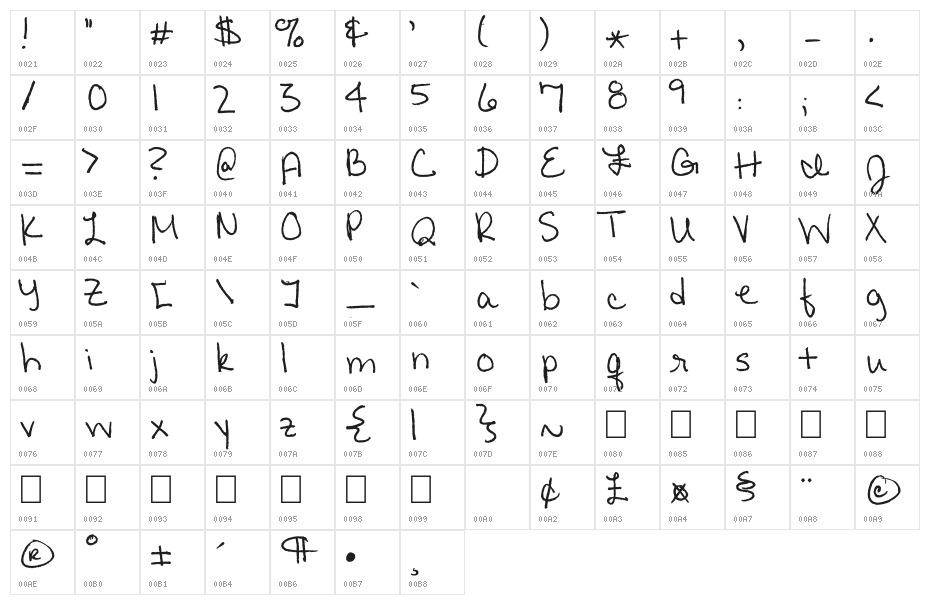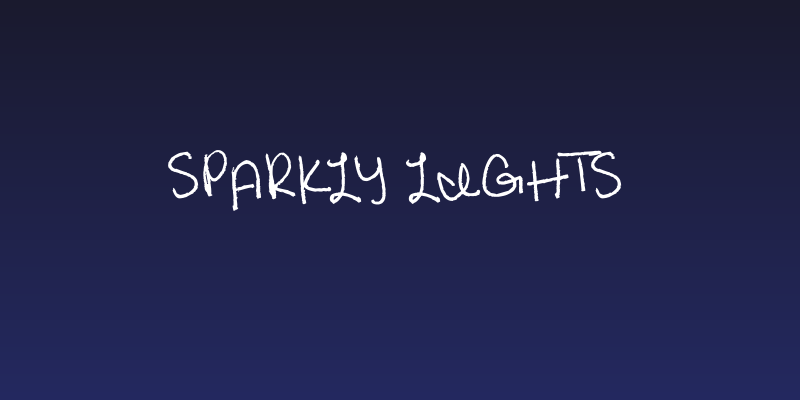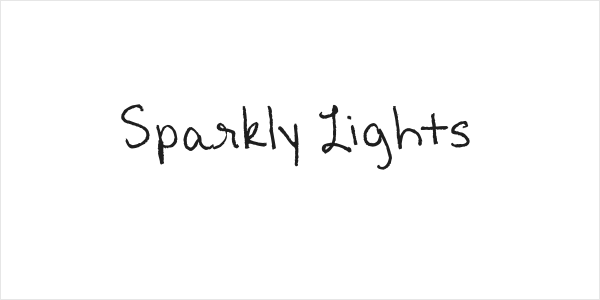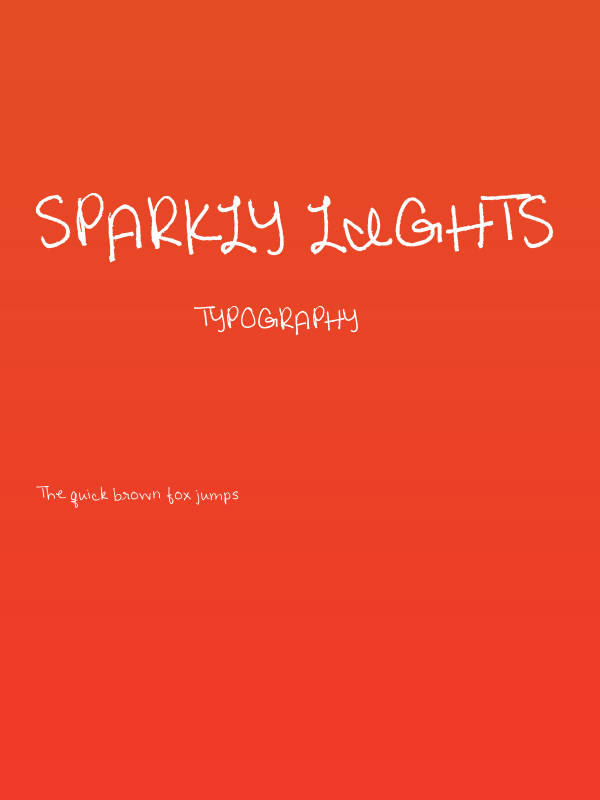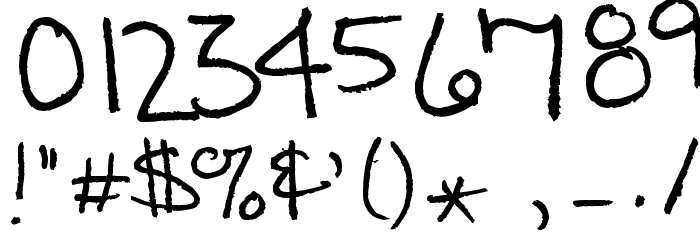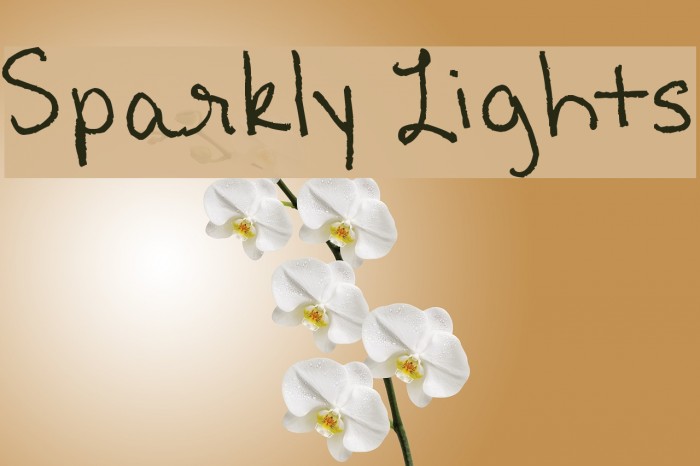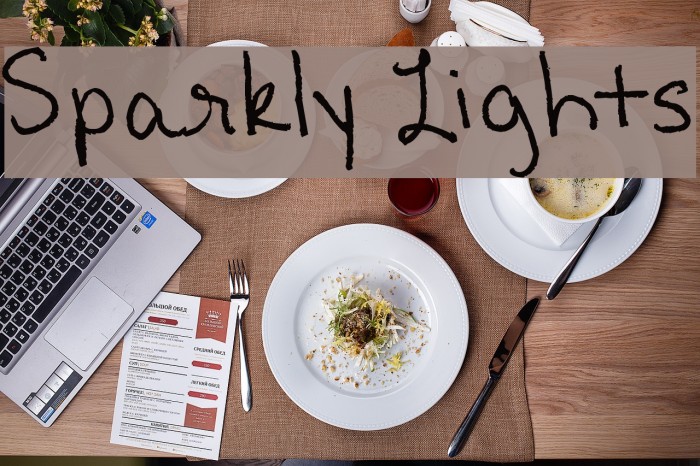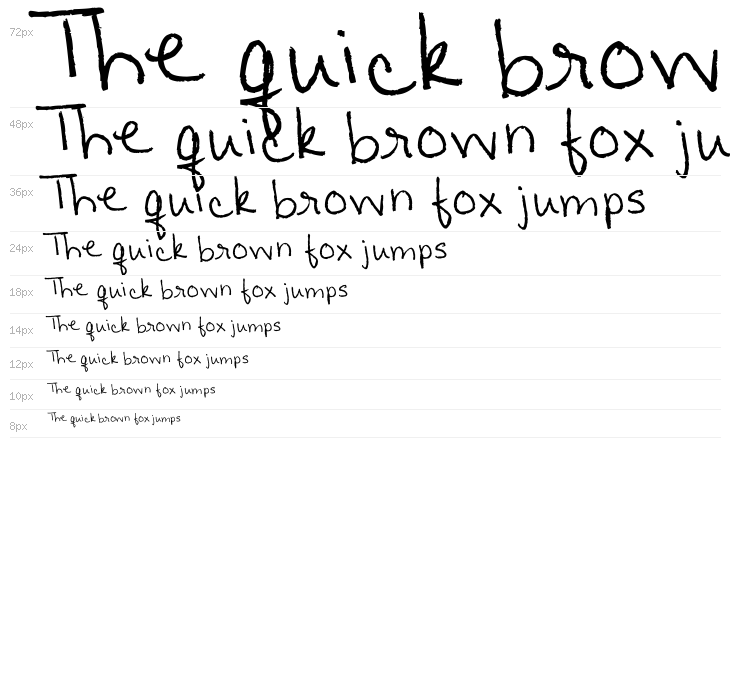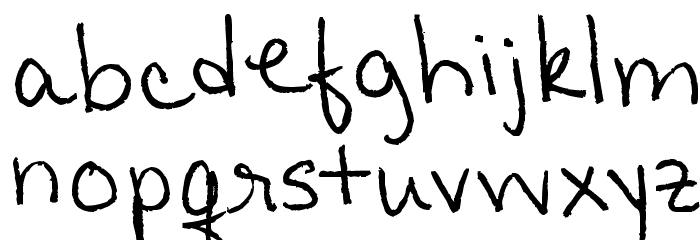
Sparkly Lights Font
Sparkly Lights Description
This font exudes a playful and informal charm, characterized by its handwritten style. The letters are uneven and slightly tilted, giving it a casual, personal touch that mimics natural handwriting. The strokes are bold and somewhat irregular, adding to the font's whimsical and spontaneous feel. The uppercase and lowercase letters maintain a consistent style, with rounded edges and varying line thicknesses that suggest a hand-drawn quality. The numbers and special characters follow the same playful aesthetic, making the font versatile for creative projects. Its overall appearance is lively and approachable, perfect for designs that aim to convey a sense of fun and creativity.
| Overall Style | Playful, Informal |
| Proposed Projects | Ideal for greeting cards, children's books, playful branding, and informal invitations. |